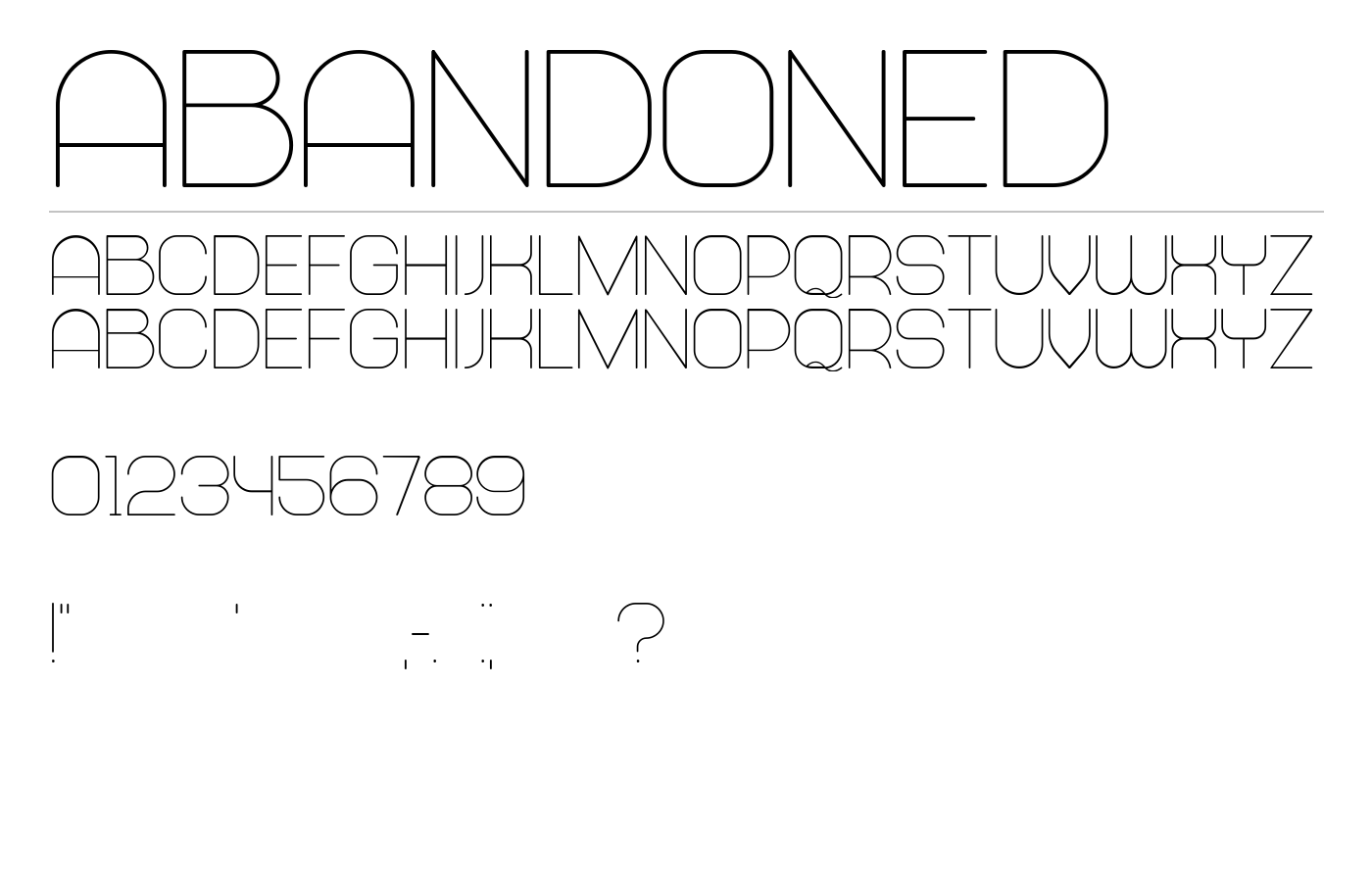
Abandoned Font is a sleek, modern sans serif typeface characterized by its thin, geometric lines and tall, narrow letterforms that create an airy, minimalist appearance. Its delicate stroke contrast and streamlined shapes give it a futuristic and elegant vibe, making it perfect for stylish logos, tech branding, and contemporary editorial designs where a clean yet distinctive look is desired. This font excels in large display settings, lending a sense of sophistication and modernity without overwhelming the viewer.
Abandoned Font
About Abandoned Font
| Font family | Abandoned Font |